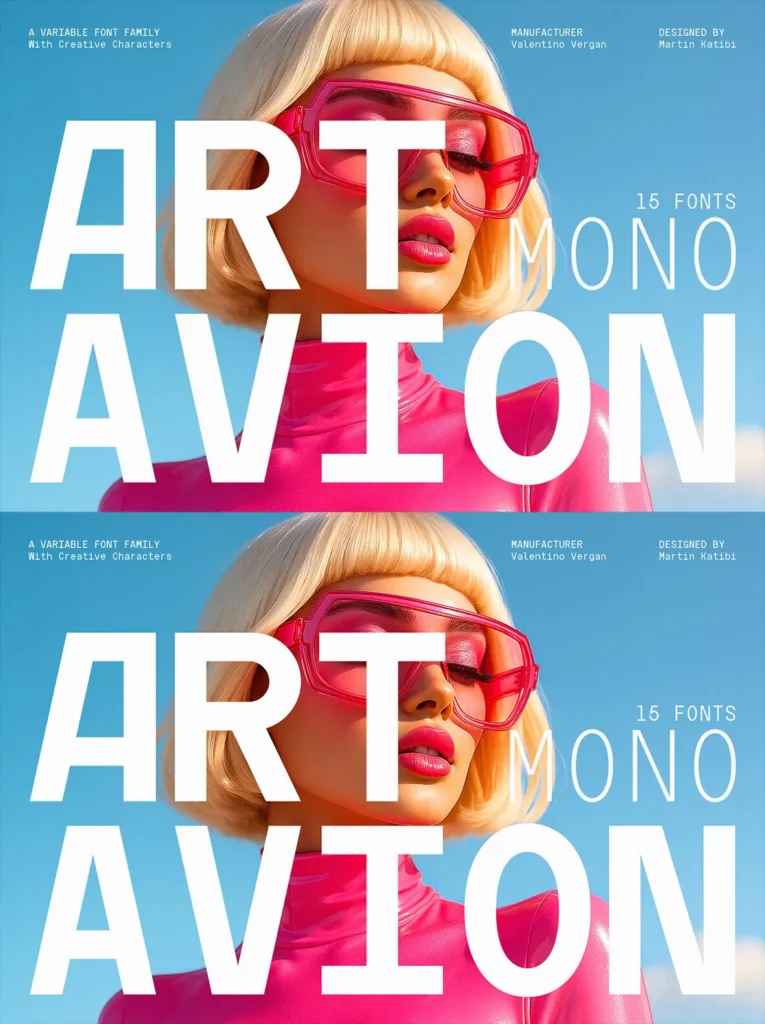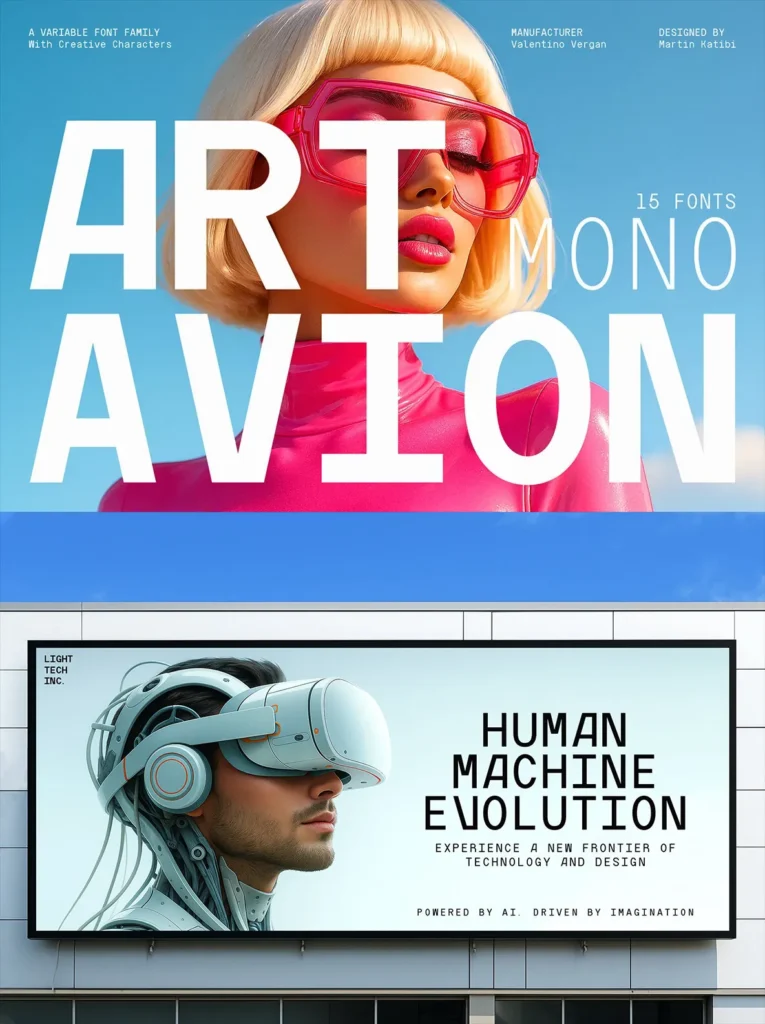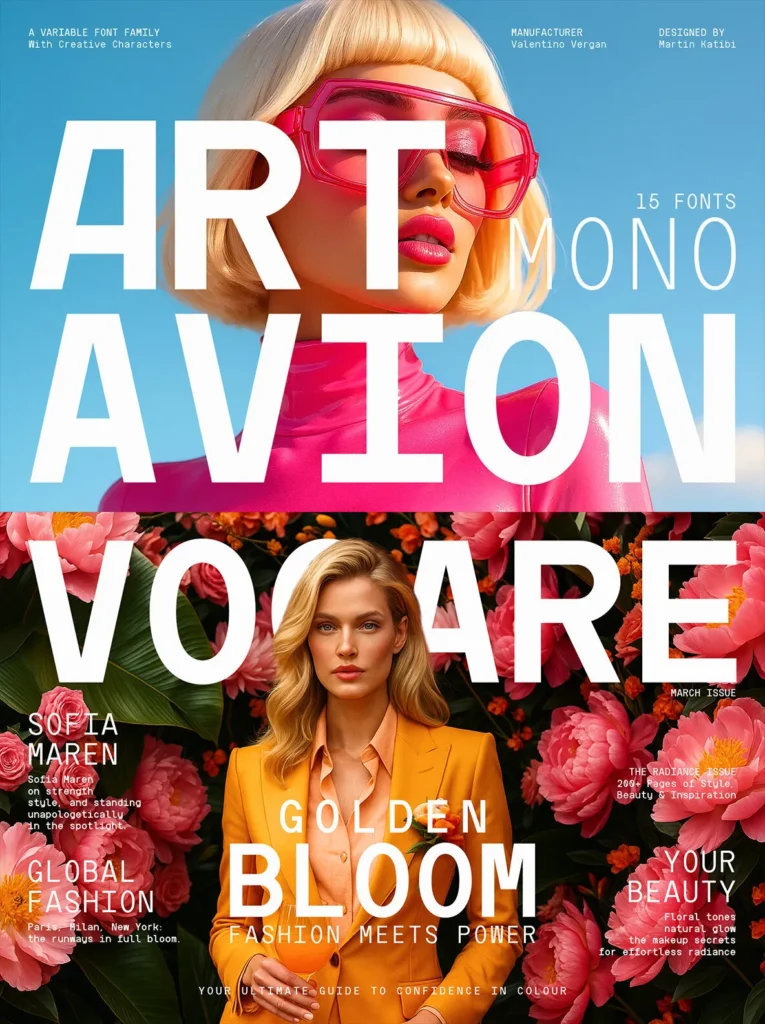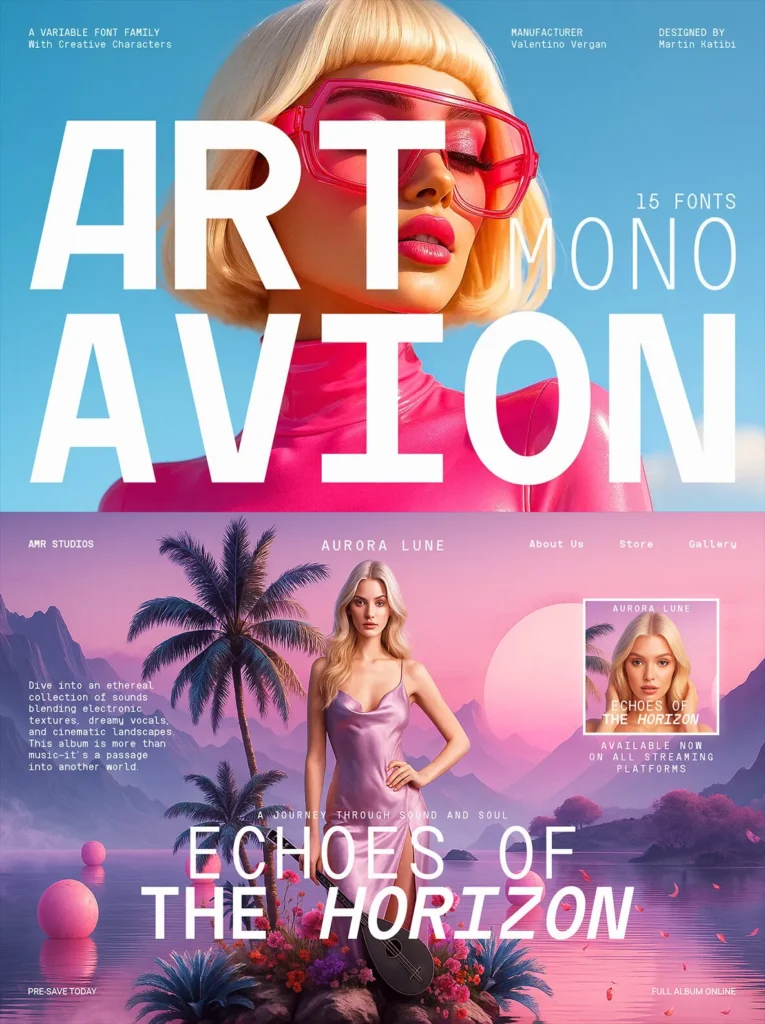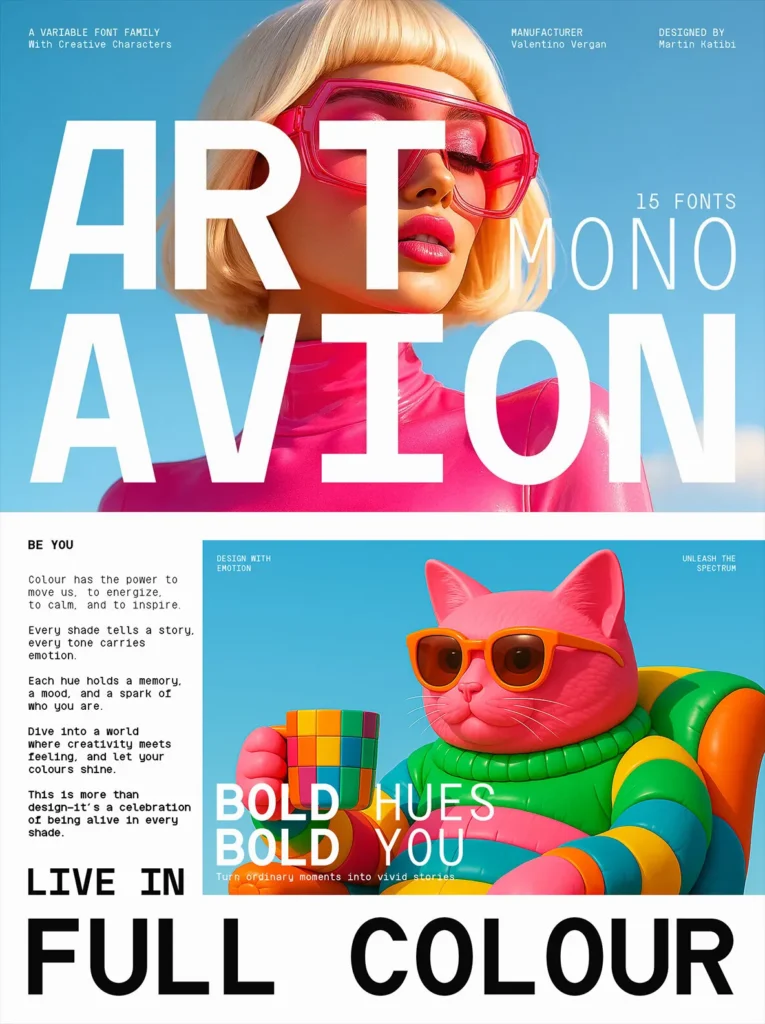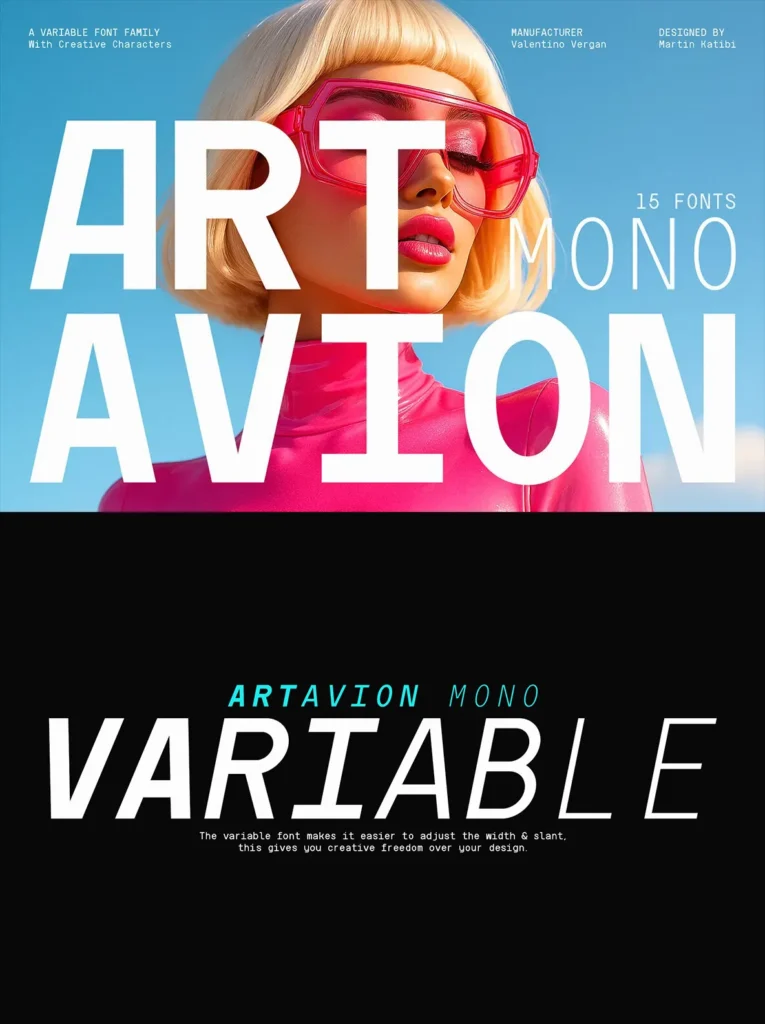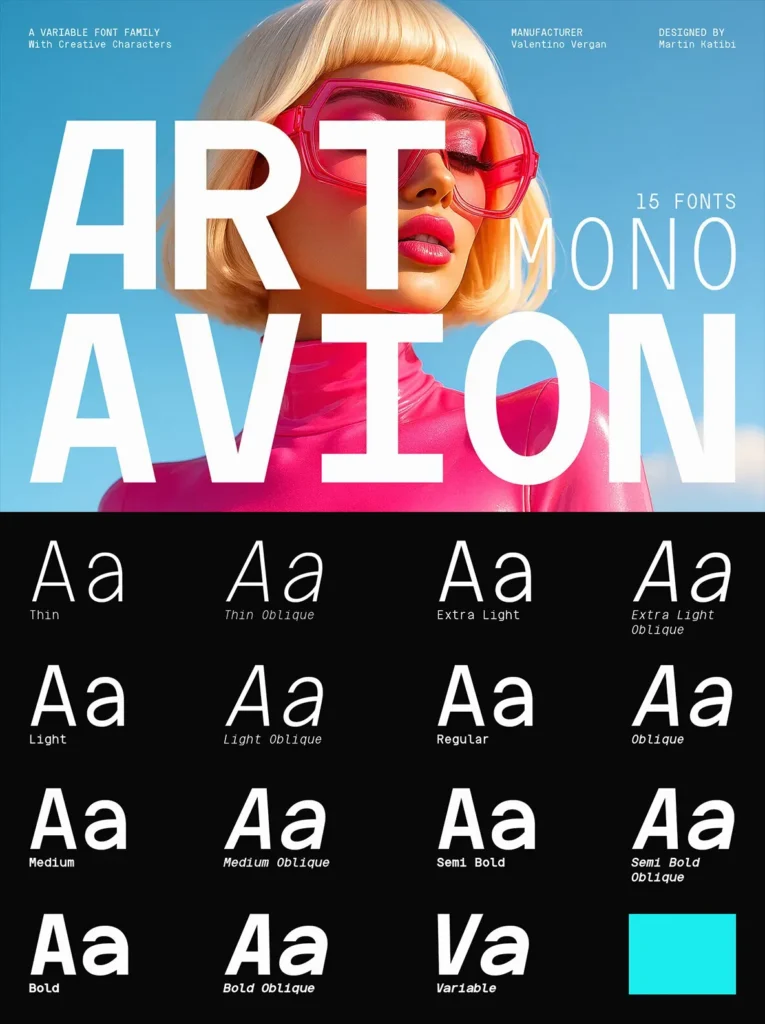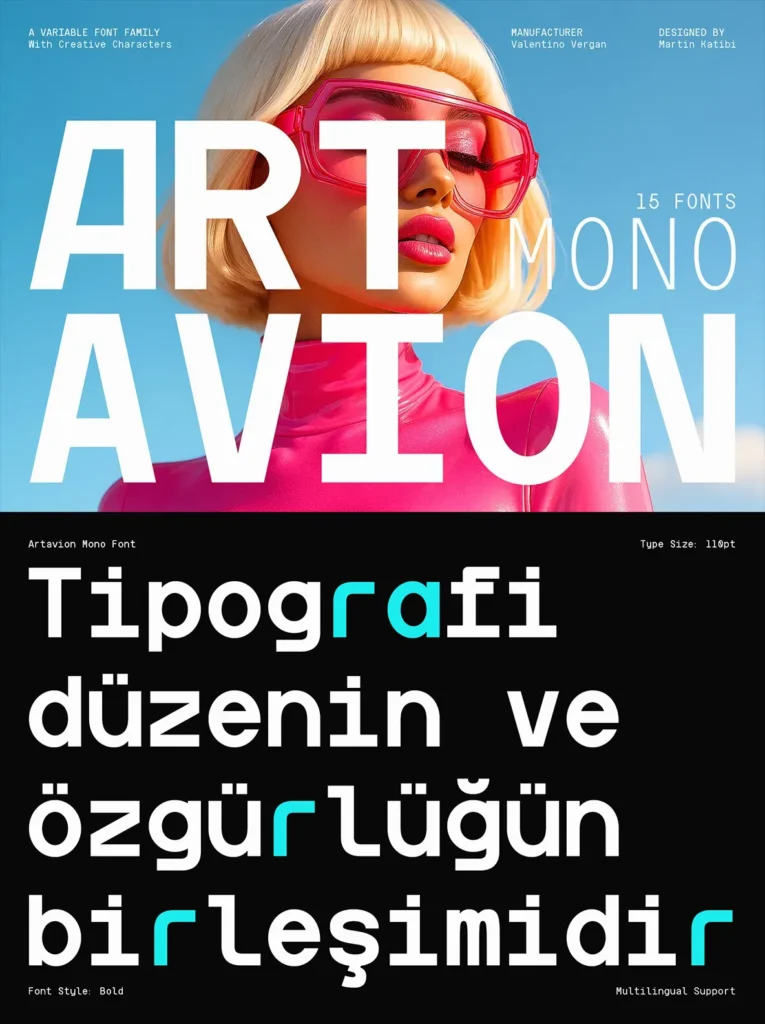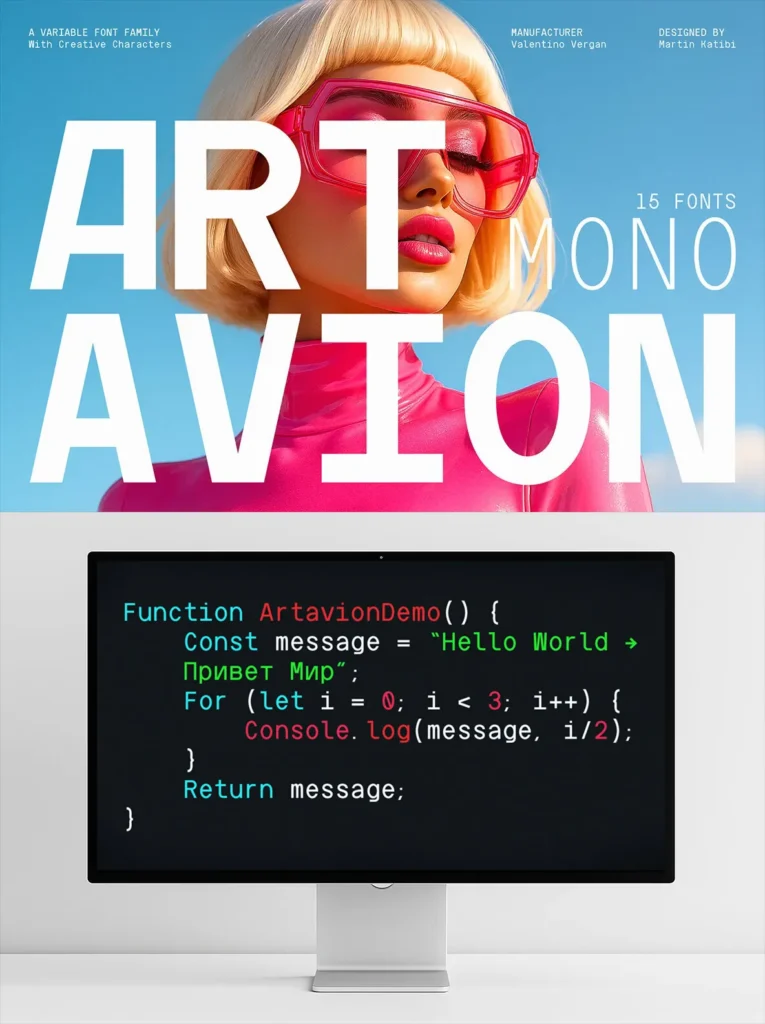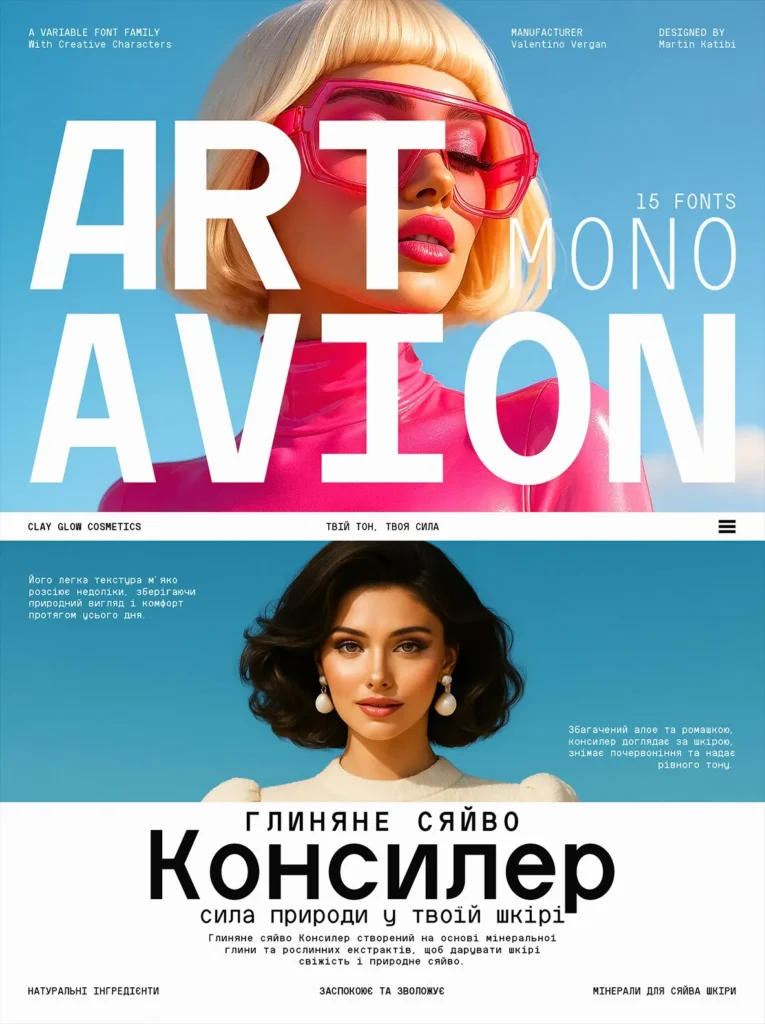
Artavion Mono Font
Artavion Mono: Monospace Typeface for Forward-Thinking Brands
Artavion Mono redefines the classic monospace typeface with a blend of precision and creative flair, designed specifically for graphic designers and forward-thinking brands. This typeface stands out with its unique ability to blend the traditional coding aesthetic with retro-futuristic alternatives, allowing for bold and expressive designs.
The variable typography system enables real-time adjustments of weight and style, making it ideal for a range of applications, from dynamic layouts and editorial spreads to kinetic typography and branding. With extended Latin and Cyrillic support, Artavion Mono ensures design consistency across diverse markets and global projects, offering both clarity and character.
Best For
Bold editorial design
Expressive branding campaigns
Futuristic interfaces and UI/UX systems
Designers seeking flexibility in graphic design
Posters, motion graphics, and kinetic typography
Artavion Mono combines brutalist impact with a touch of retro-futurism, offering a sophisticated solution in a versatile typeface. Experience it in your next project to harness its unique character and adaptability.